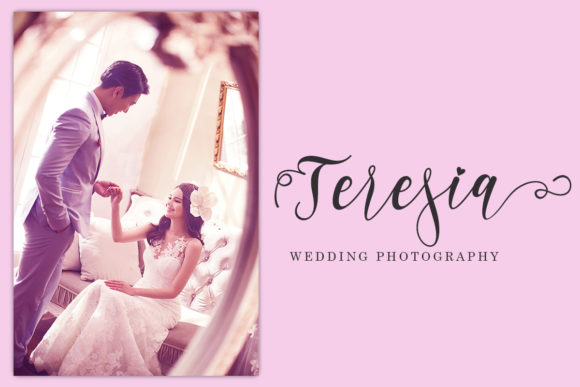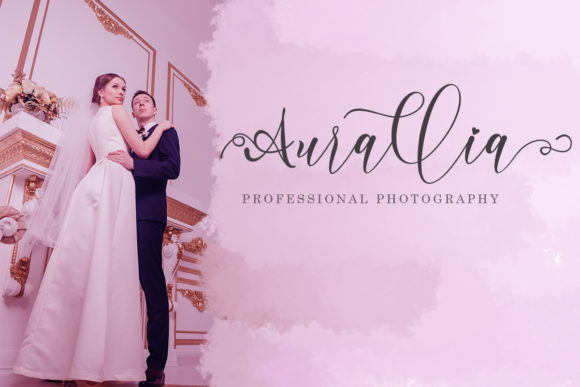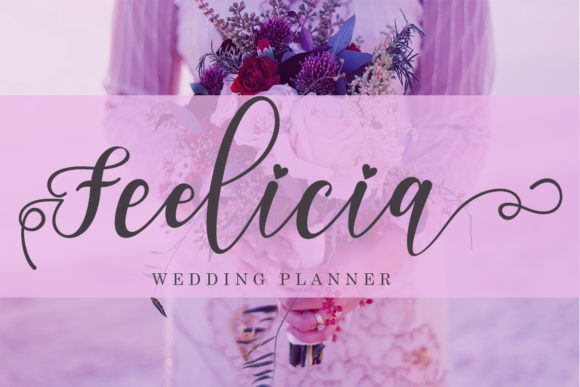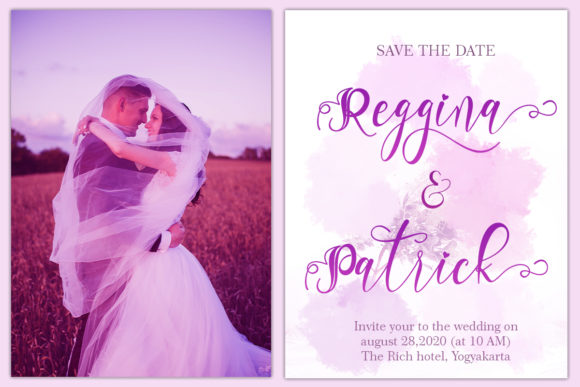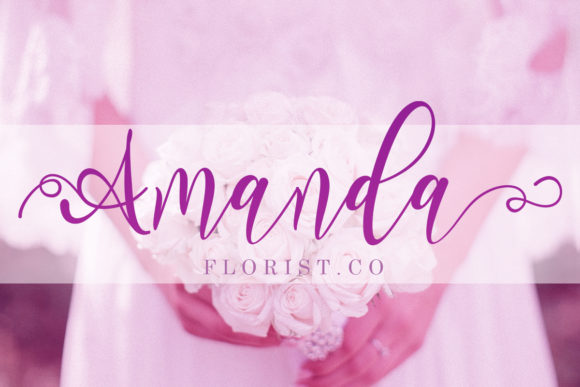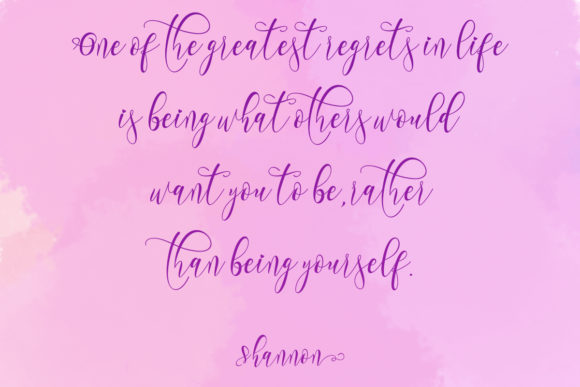
The Magic of Handwritten Fonts: Unleashing the Power of Bethavera Font
Do you remember the moment when a single font changed the entire vibe of your design? For many of us, it’s that ‘aha’ moment when creativity flows, and our ideas start to take shape. As designers, we’ve all been there – staring at a blank canvas, searching for that perfect font to bring our vision to life.
Enter Bethavera Font, a delicate, elegant, and flowing handwritten font that adds a touch of sophistication to any design. With its beautiful and well-balanced characters, Bethavera Font is the perfect addition to your creative projects. Whether you’re working on a wedding invitation, a blog post, or a social media campaign, this font is sure to make your designs stand out.
Bethavera Font Key Features
- Font Family: Bethavera is a script font family designed for elegant and stylish text arrangements.
- Character Count: The font family contains a large character set, including Latin, Cyrillic, and Greek scripts, with over 1,000 glyphs.
- Unique Characteristics: Bethavera features a beautiful, flowing script design with subtle flair and elegant connections between letters.
Bethavera Font Review
Overall, I think Bethavera Font has some nice qualities that could make it a great choice for the right project.
- Unique Character: Bethavera has a unique, hand-drawn feel that can add a touch of personality to your design.
- Legibility: Despite its quirky feel, the font is surprisingly legible, making it a good choice for body text.
- Variety: The font comes with a range of weights and styles, giving you plenty of options for customization.
- Readability at Small Sizes: While Bethavera is legible, it can start to break down at very small sizes, which may limit its use for titles or headings.
- Lack of Consistency: The hand-drawn feel can sometimes feel inconsistent, with some letters looking more rough-hewn than others.
Bethavera Font is a solid choice for designers looking to add some personality to their work. While it may not be the best choice for every project, it has a lot to offer when used thoughtfully. With a little care in choosing the right weights and styles, Bethavera can add a unique touch to your design that will set it apart from the crowd.
Tips for Getting the Most Out of Bethavera Font
To get the most out of the Bethavera font, consider the following tips:
- Use the font in combination with other elegant fonts to create a sophisticated look.
- Use the font in headings and titles to create a clear hierarchy of information.
The Bethavera font is ideal for:
- Book covers
Alternatives to Bethavera Font
Playfair Display is a luxurious and elegant script font that is perfect for adding a touch of sophistication to your designs. It features a classic, vintage look that is ideal for high-end brands, luxury products, and formal invitations. Compared to Bethavera Font, Playfair Display has a more refined and polished appearance, making it suitable for more formal and upscale projects.
Pacifico is a beautiful and modern script font that is perfect for adding a touch of warmth and personality to your designs. It features a relaxed, casual look that is ideal for creative projects, branding, and advertising. Compared to Bethavera Font, Pacifico has a more laid-back and approachable appearance, making it suitable for projects that require a friendly and approachable tone.